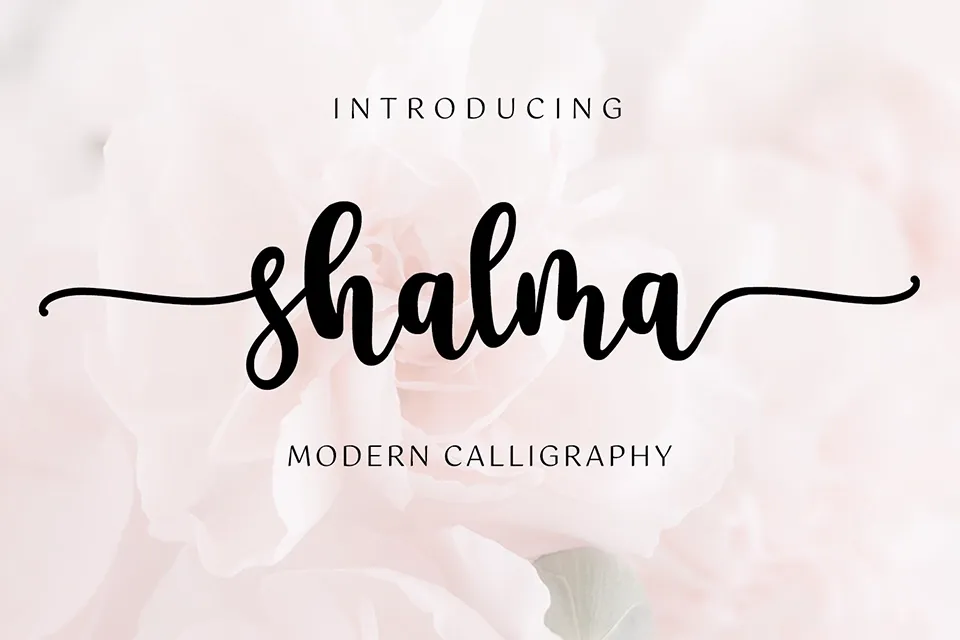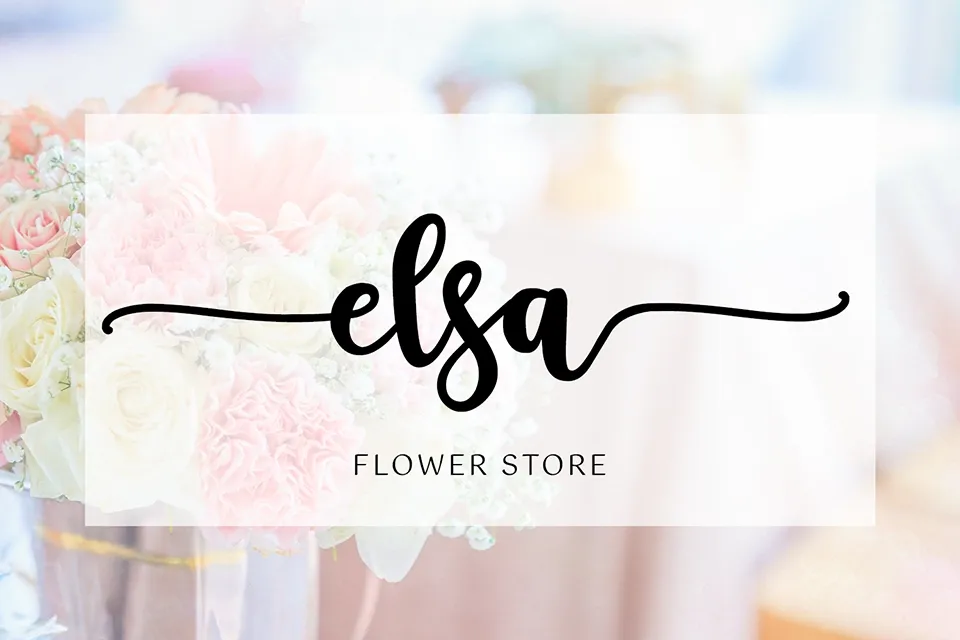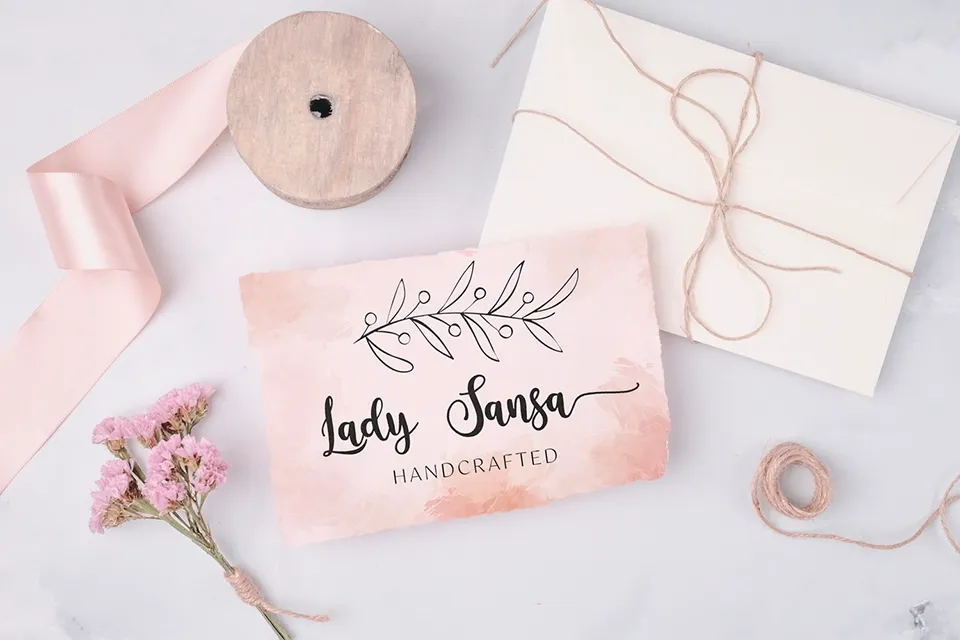
Shalma Font
Shalma Font is presented as a modern calligraphy typeface, characterized by its elegant and flowing script style. It showcases a distinct contrast between thick and thin strokes, mirroring the look of traditional pointed pen calligraphy but with a contemporary flair. Letters connect seamlessly, and graceful, elongated swashes enhance its sophisticated appearance. The overall feel is romantic and refined, making Shalma perfect for wedding invitations, upscale branding, logos, feminine signatures, stationery, and any design requiring a touch of handcrafted elegance and fluidity.